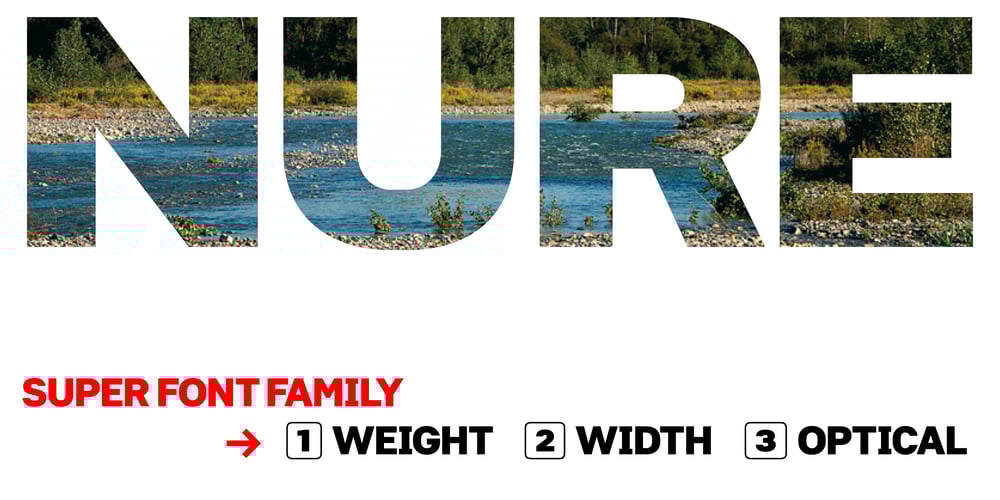
Nure
Nure font
Nure Font Family was designed by Fabrizio Schiavi and published by FSD. Nure contains 55 styles and family package options. Nure™ is a variable font family designed in 3 axes (Weight, Optical, Width) to cover all the graphic design needs.Thanks to 11 OpenType Stylistic Sets, Nure™ is one of the most flexible typefaces of all times.Every weight’ set is composed by more than 1300 glyphs from Latin and Cyrillic encodings